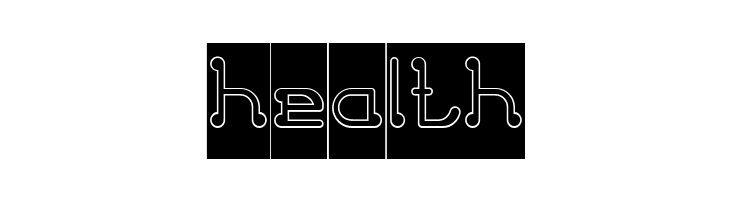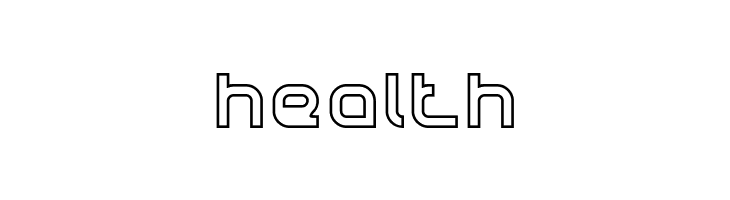
A modern, light sans-serif font with rounded, tubular characters.
A modern, oblique font with smooth, rounded edges and consistent stroke width.
An artistic script font with flowing, calligraphic strokes and dramatic flair.
A playful, pipe-themed decorative font with a hand-drawn style.
A whimsical, pipe-themed decorative font with playful character designs.
A modern, elegant script font with decorative loops and smooth flow.
A dynamic and elegant script font with fluid, cursive strokes.
A playful, bold font with rounded, bubbly characters ideal for fun designs.
A decorative, woodcut-style font with intricate detailing and a vintage aesthetic.
Ornate woodcut-style font with pictorial glyphs.
A bold, expressive script font with interconnected characters and a modern flair.
A playful, hand-drawn hollow font with a whimsical and artistic style.
A playful, bold font with rounded edges and a hand-drawn feel.
A futuristic, hollow, geometric font with clean lines and angular shapes.
A jagged, thorn-like decorative font with sharp, elongated strokes.
A bold, three-dimensional font with a hollow interior and geometric design.
A whimsical, heart-themed font with hollow characters and smooth lines.
A playful, heart-themed font with hollow, flowing lines.
A bold, hollow, geometric font with a modern and industrial style.
A bold, hollow, geometric font with a modern and decorative style.
A hollow, three-dimensional font with a geometric and modern style.
A futuristic hollow font with geometric outlines and a modern aesthetic.
A bold, geometric font with hollow interiors and a modern, industrial style.
A bold, geometric font with hollow interiors and a modern, futuristic style.
A geometric, hollow font with a futuristic and modern design.
A geometric, hollow font with a modern and abstract style.
A modern, geometric hollow font with an inverse style and symmetrical forms.
A bold, geometric hollow font with a three-dimensional effect.
A playful, hollow font with unique loops and curls on each character.
A decorative hollow font with playful loops and rounded terminals.